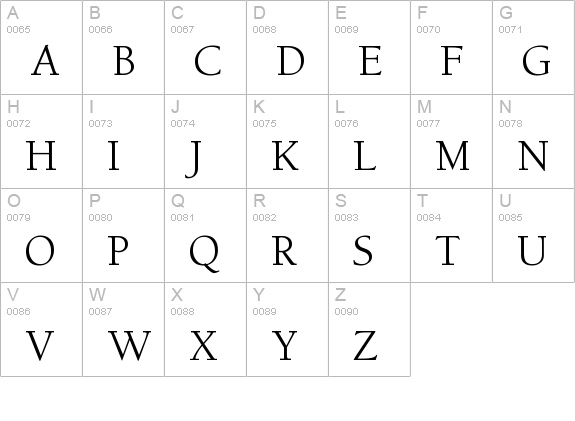
Berkeley Oldstyle Regular Font Details
Berkeley Oldstyle Regular is the standard, neutral variant in the Berkeley typeface family \xE2\x80\x94 well suited to general body text, paragraphs, and standard typographic work.
Berkeley Oldstyle Regular is a classic and elegant serif font that exudes sophistication and timelessness. Its strong, yet graceful letterforms make it ideal for a wide range of design projects, from traditional print materials to modern digital applications. The font's balanced proportions and subtle serifs give it a sense of refinement and authority, making it a versatile choice for both body text and headings. What sets Berkeley Oldstyle Regular apart is its versatility and readability across various mediums and sizes. Whether used in print or on screen, this font maintains its clarity and legibility, ensuring that your message is communicated effectively to your audience. The best part? Berkeley Oldstyle Regular is free to download at FontsMarket.com, making it accessible to designers and creatives looking to add a touch of sophistication to their projects without breaking the bank. Embrace the timeless charm of Berkeley Oldstyle Regular and elevate your designs with this exquisite font today.